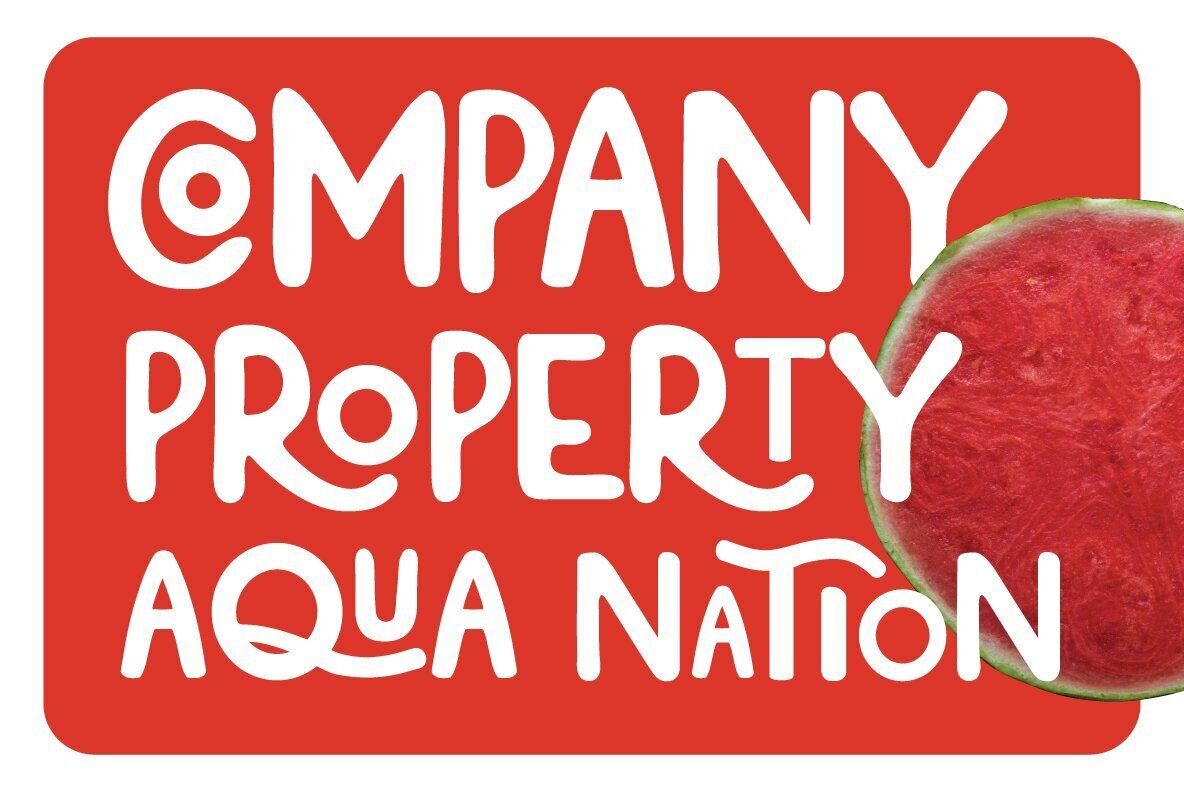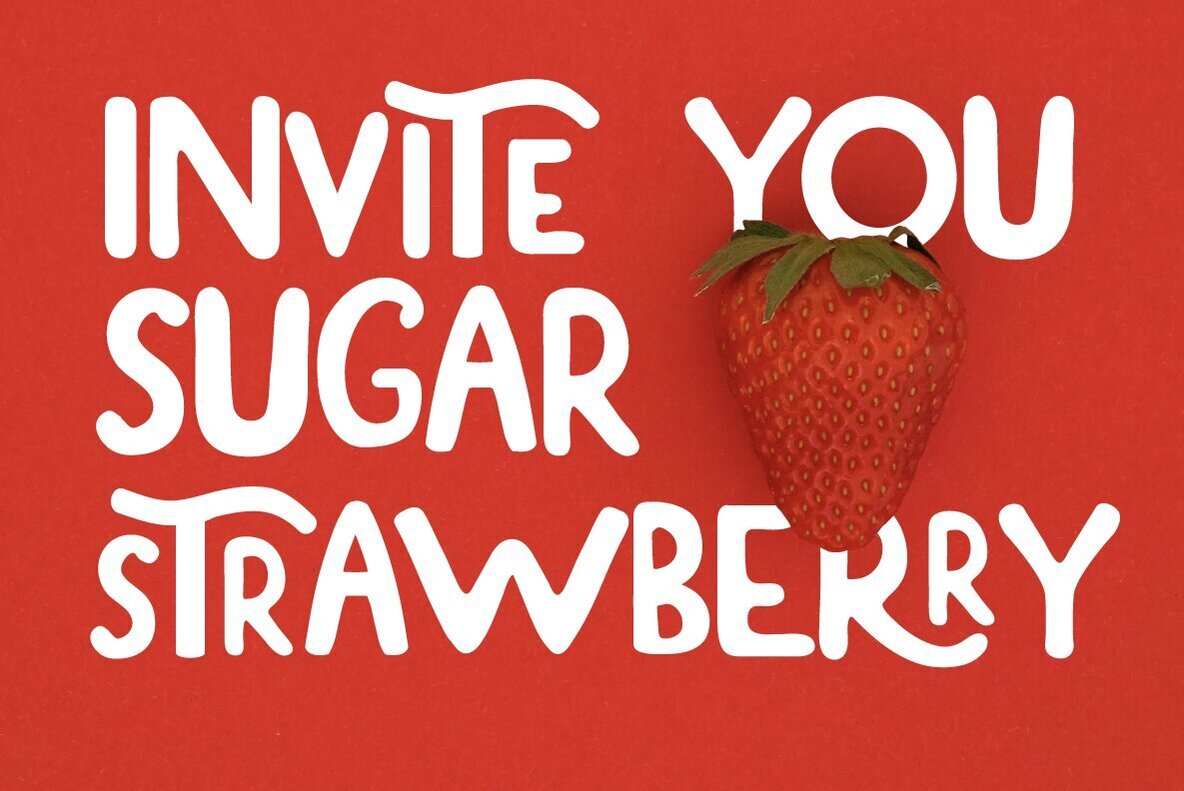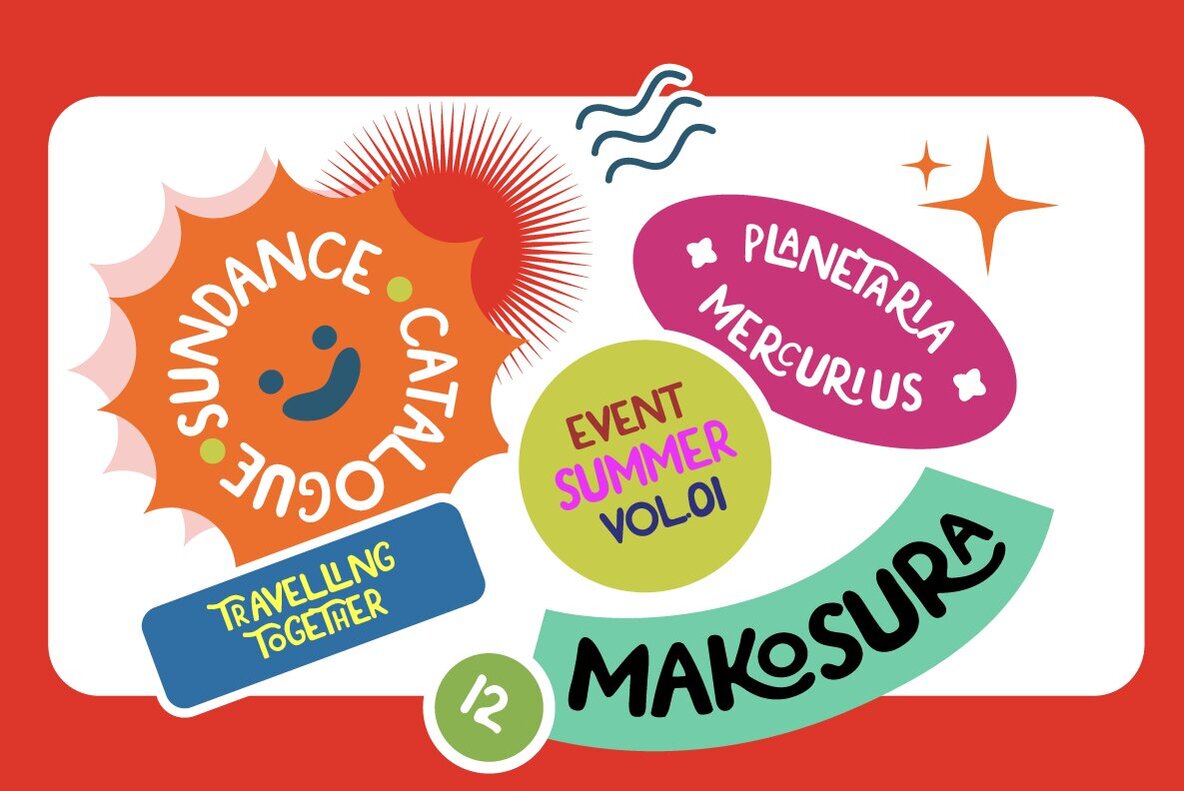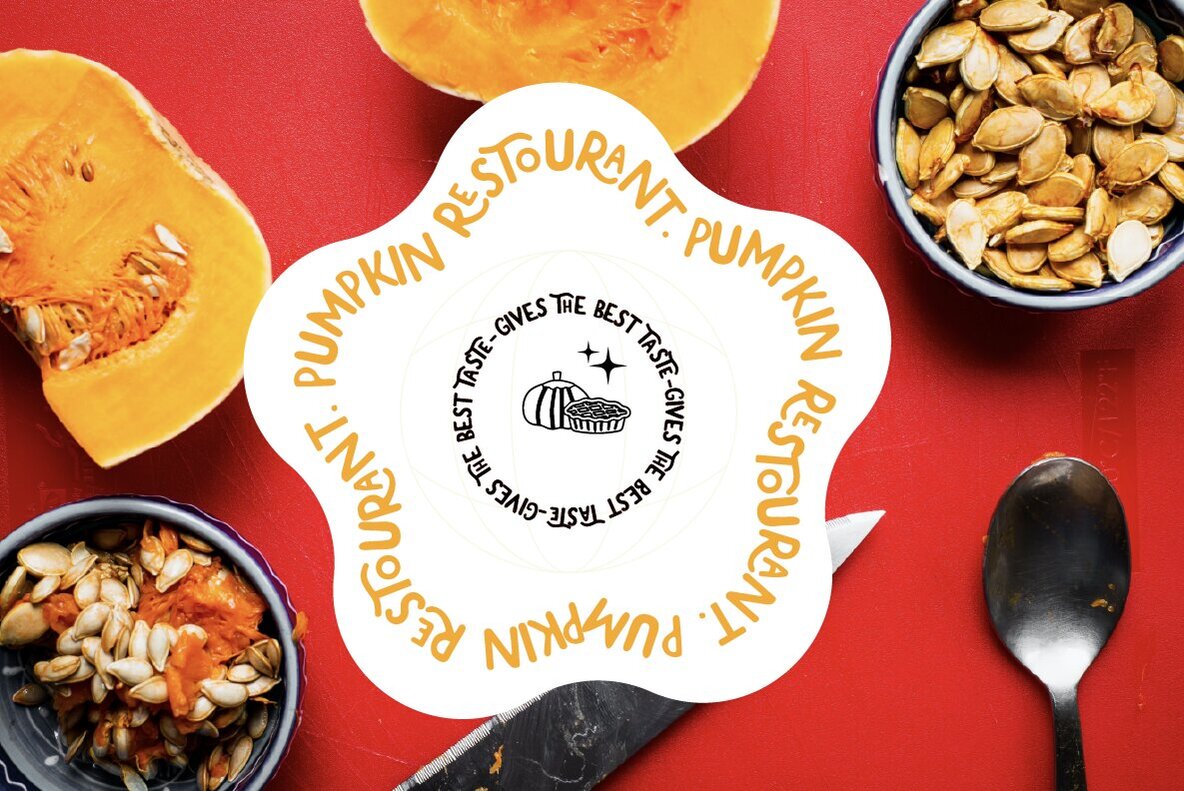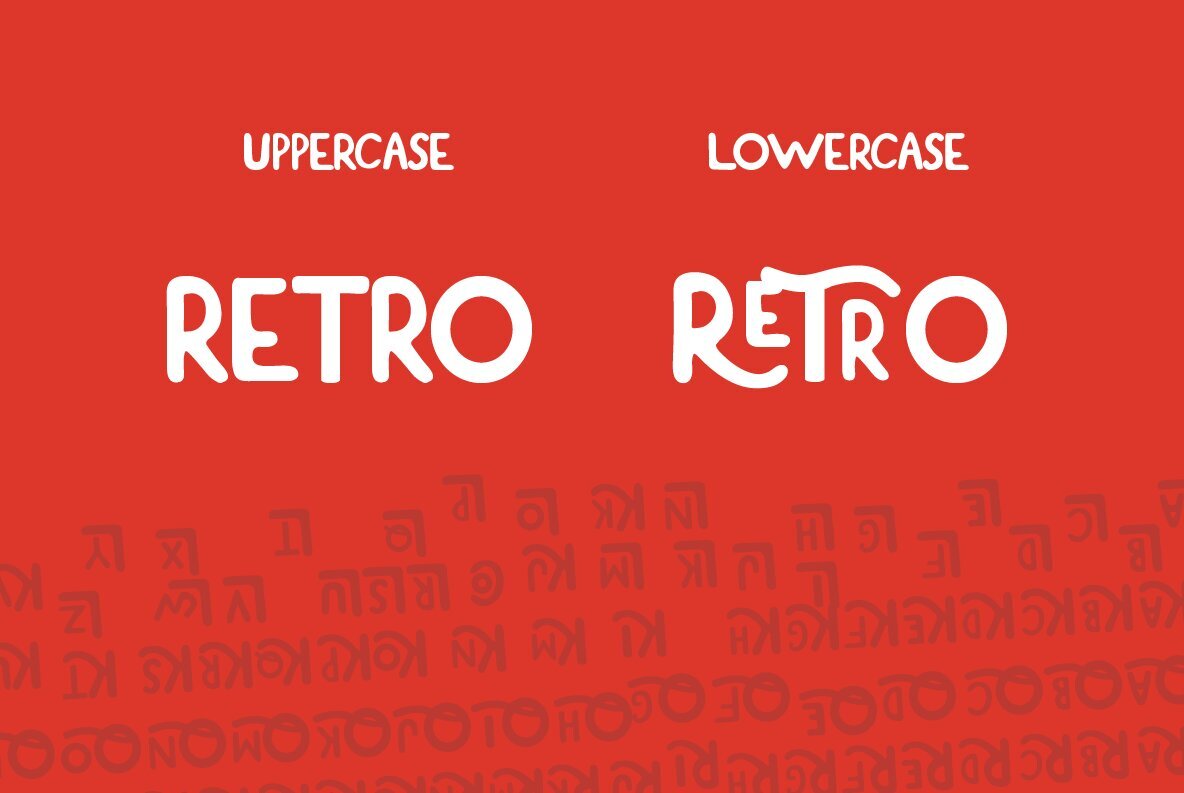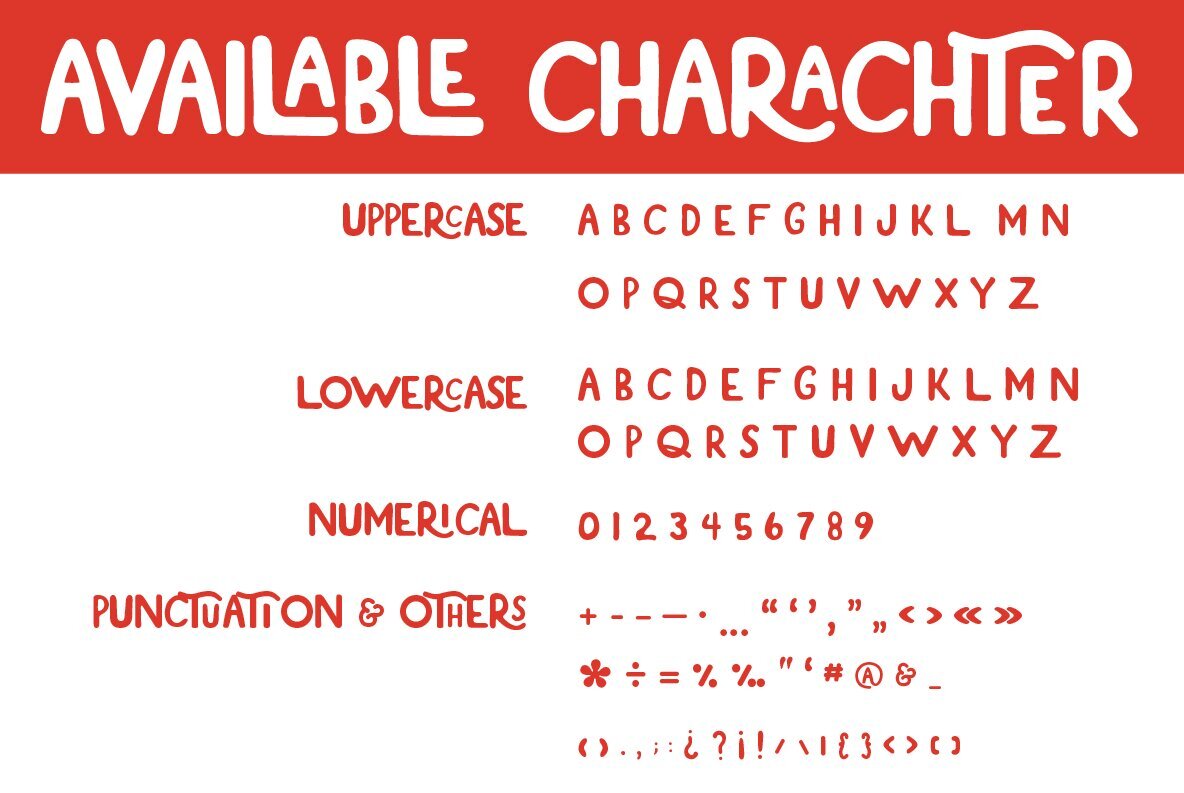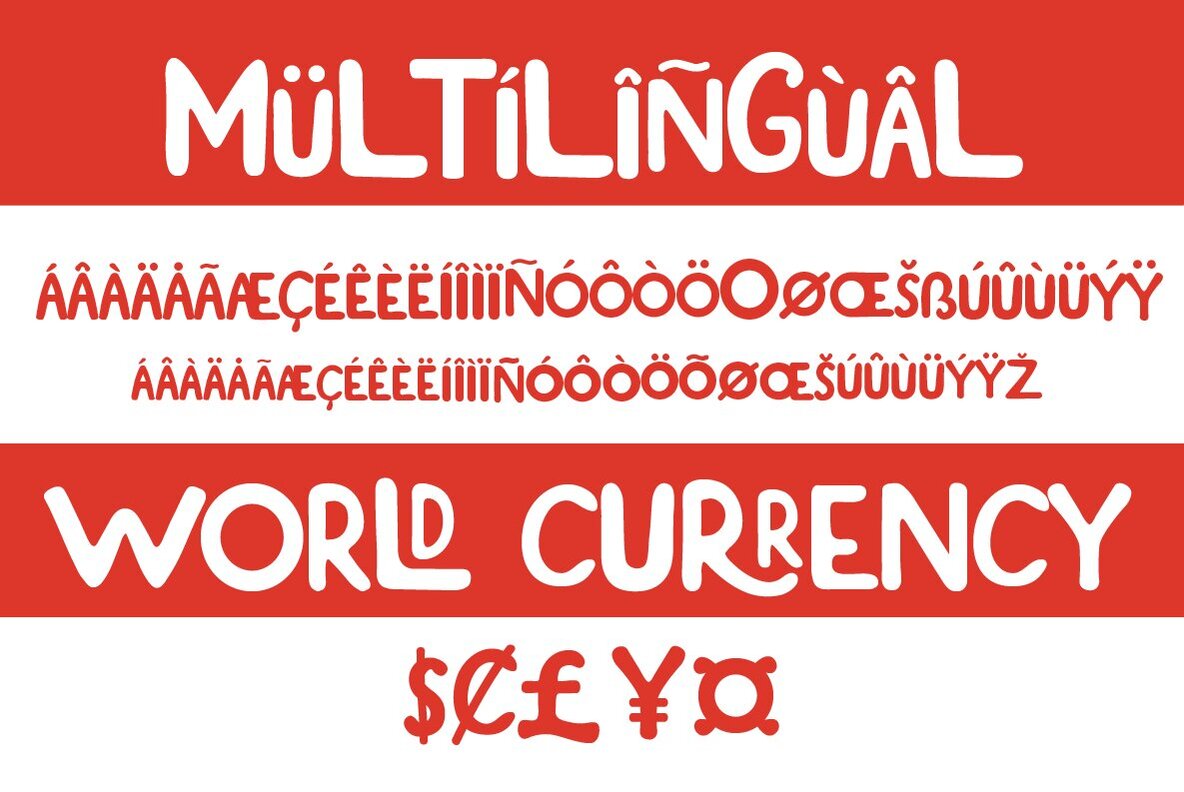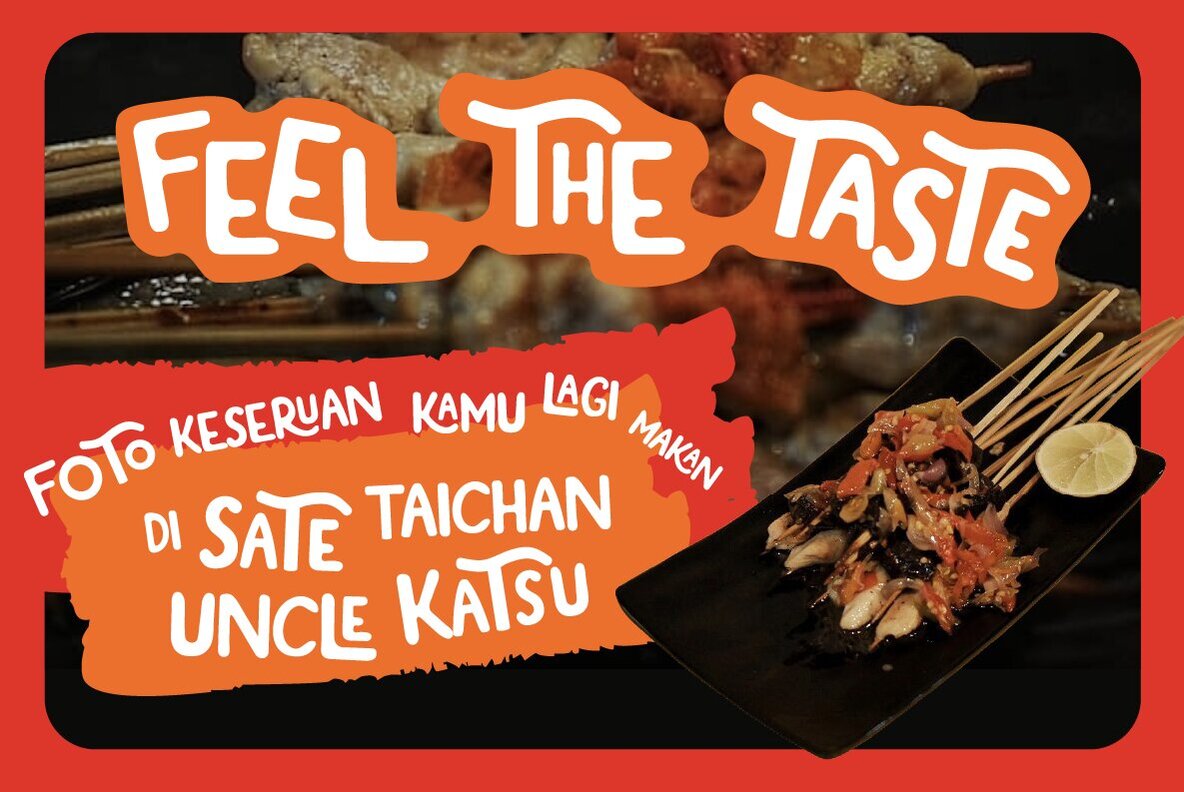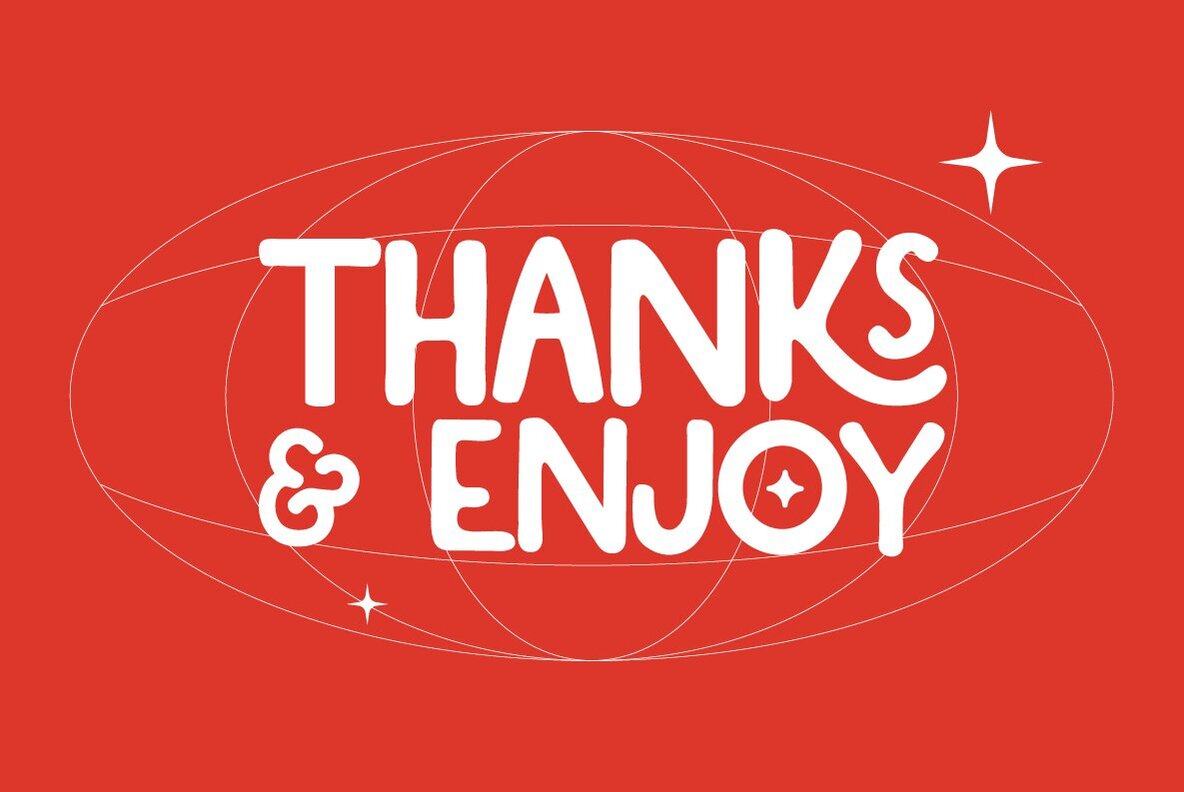
Sirukota Font
Sirukota
Sirukota is a unique display typeface designed by Jetsmax Studio, bringing a lively theme to your creative projects. Its special characters infuse your designs with character and charm. This versatile font is perfect for a wide range of applications:Sirukota: A Lively Display Typeface